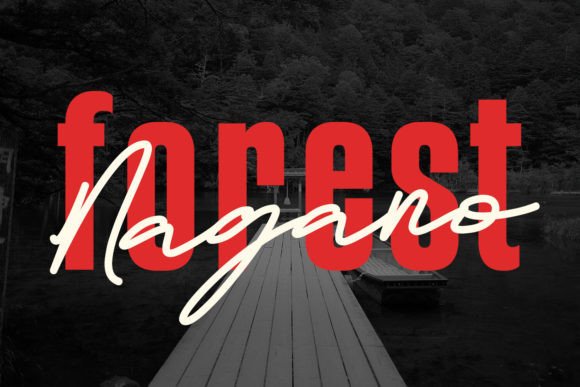
Hajime Font Duo Font
Hajime presents a modern and stylish font duo comprising a condensed sans-serif and a trendy handwritten script. The sans-serif offers a sleek and condensed design, ideal for headlines and branding. Complemented by the script font, Hajime adds a touch of elegance and personality, perfect for logos, packaging, and posters.